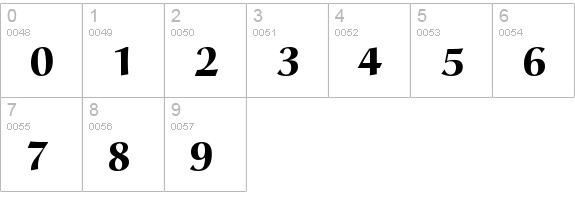
URWAlcuinTExtBol Font Details
URWAlcuinTExtBol is a remarkable font that combines elegance with legibility, making it the perfect choice for a wide range of design projects. With its bold and distinctive letterforms, this font commands attention and adds a touch of sophistication to any visual composition. The versatility of URWAlcuinTExtBol is unparalleled, allowing it to seamlessly adapt to various design styles and purposes. Whether it is used for headlines, titles, or body text, this font exudes a sense of confidence and professionalism. One of the most appealing aspects of URWAlcuinTExtBol is that it is free. That's right, this stunning font is freely available to download at FontsMarket.com. This means that designers, artists, and creatives from all walks of life can harness the power of URWAlcuinTExtBol without any cost restrictions. By offering this font for free, the creators of URWAlcuinTExtBol have made a bold statement. They believe in the democratization of design, ensuring that everyone has access to high-quality resources to bring their visions to life. This font serves as a testament to their commitment to fostering creativity and inclusivity. URWAlcuinTExtBol boasts impeccable clarity and readability, even at smaller sizes. The meticulously designed letterforms ensure that every character is distinct and legible, enhancing the overall reading experience. This makes it an excellent choice for long paragraphs of text, editorial layouts, and digital content. With its timeless aesthetic and contemporary appeal, URWAlcuinTExtBol effortlessly bridges the gap between tradition and modernity. Its clean lines and balanced proportions make it a versatile companion for both print and digital mediums, making it an indispensable addition to any designer's toolkit. Whether you are crafting a sophisticated editorial piece, designing an eye-catching poster, or creating a visually stunning website, URWAlcuinTExtBol is a font that will elevate your project to new heights. And with its free availability for download at FontsMarket.com, there is no reason not to unleash the power of this incredible font in your designs.